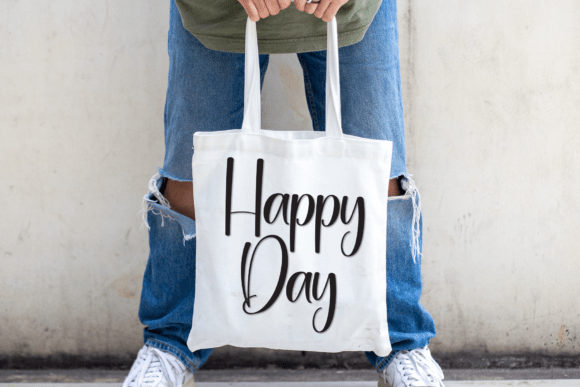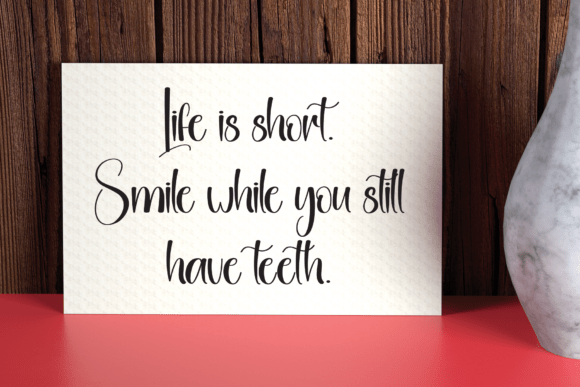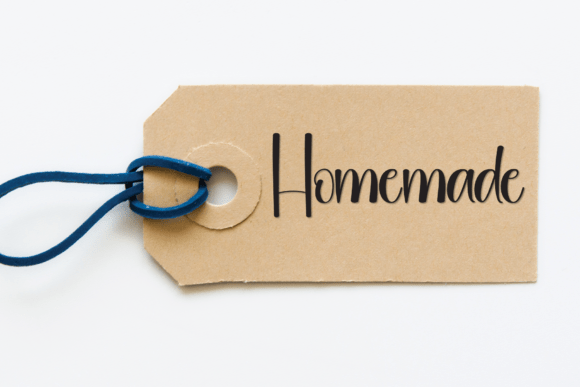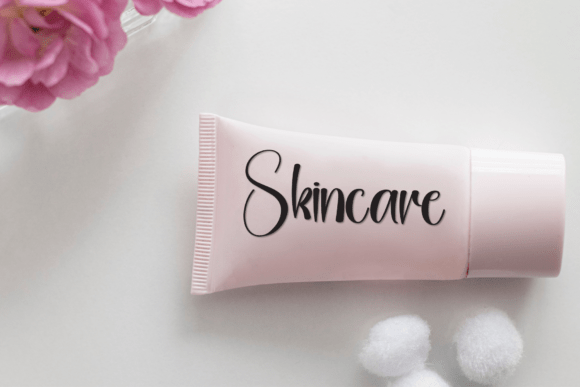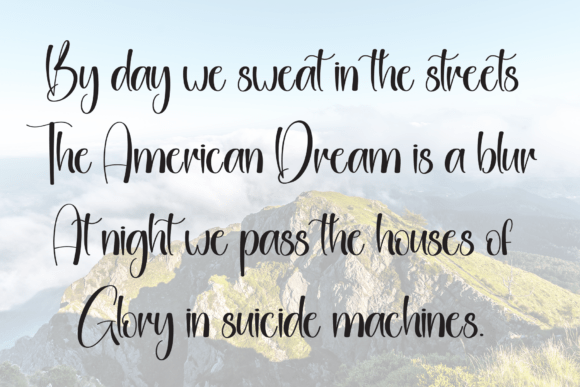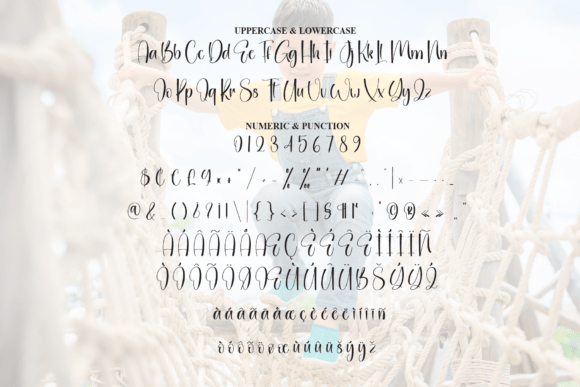
The Magic of Childhood: A Font that Captures the Wonder of Youth
I still remember the design project that led me to discover the Childhood font. I was working on a nursery wall art piece for a client’s little one, and I was struggling to find the perfect font that would capture the playful, whimsical feel of childhood. The client wanted something that would make her child’s room feel special and unique, but I was coming up blank. That’s when I stumbled upon Childhood, and it was love at first sight! ✨
I’ve had the pleasure of working with Childhood on several projects, and here’s what I think:
- ✅ The elegant ascenders and bouncy baseline make it feel like a child’s handwriting, but with a sophisticated twist.
- ✨ The fluid strokes and organic flow give it a warm, personal feel that’s perfect for projects that require a touch of whimsy.
- ✅ It’s incredibly versatile – I’ve used it for nursery wall art, children’s book titles, and even youthful boutique branding.
Of course, no font is perfect, and Childhood has a few quirks:
- ⚠️ Some of the letters can be a bit tricky to read at smaller sizes, so it’s best to use it at larger sizes or for display text.
- 🤔 The irregular baseline can make it a bit challenging to pair with other fonts, but I’ve found that it works beautifully with simple, clean fonts.
The Story Behind Childhood
Childhood was designed with the intention of capturing the pure joy and wonder of youth. The designer wanted to create a font that would evoke the feeling of a child’s imagination, with all its quirks and imperfections. The result is a font that’s both sophisticated and playful, perfect for projects that require a touch of whimsy.
| Font Name | Childhood Font |
| What is Childhood? | Childhood is a beautiful handwritten font with a bouncy, irregular baseline and elegant ascenders. |
| What can I use Childhood for? | Childhood is perfect for nursery wall art, children’s book titles, baby milestone photography, and youthful boutique branding. |
| Is Childhood easy to read? | Childhood is generally easy to read, but some letters can be a bit tricky at smaller sizes. |